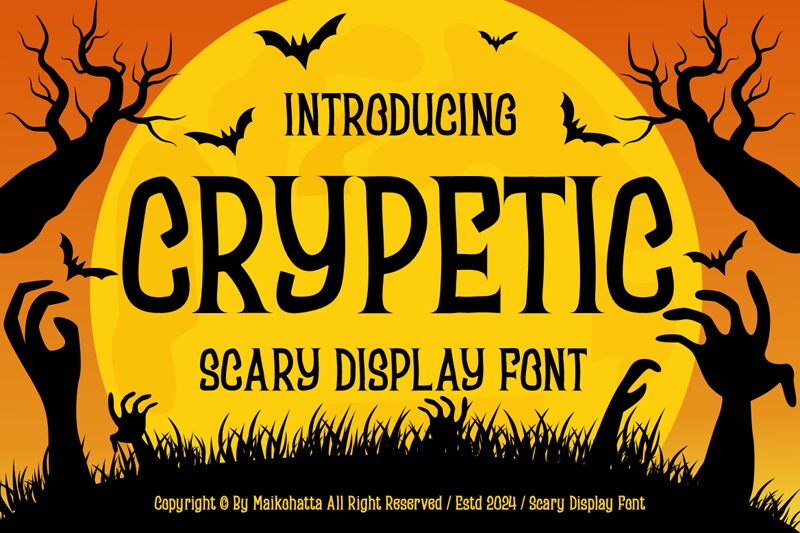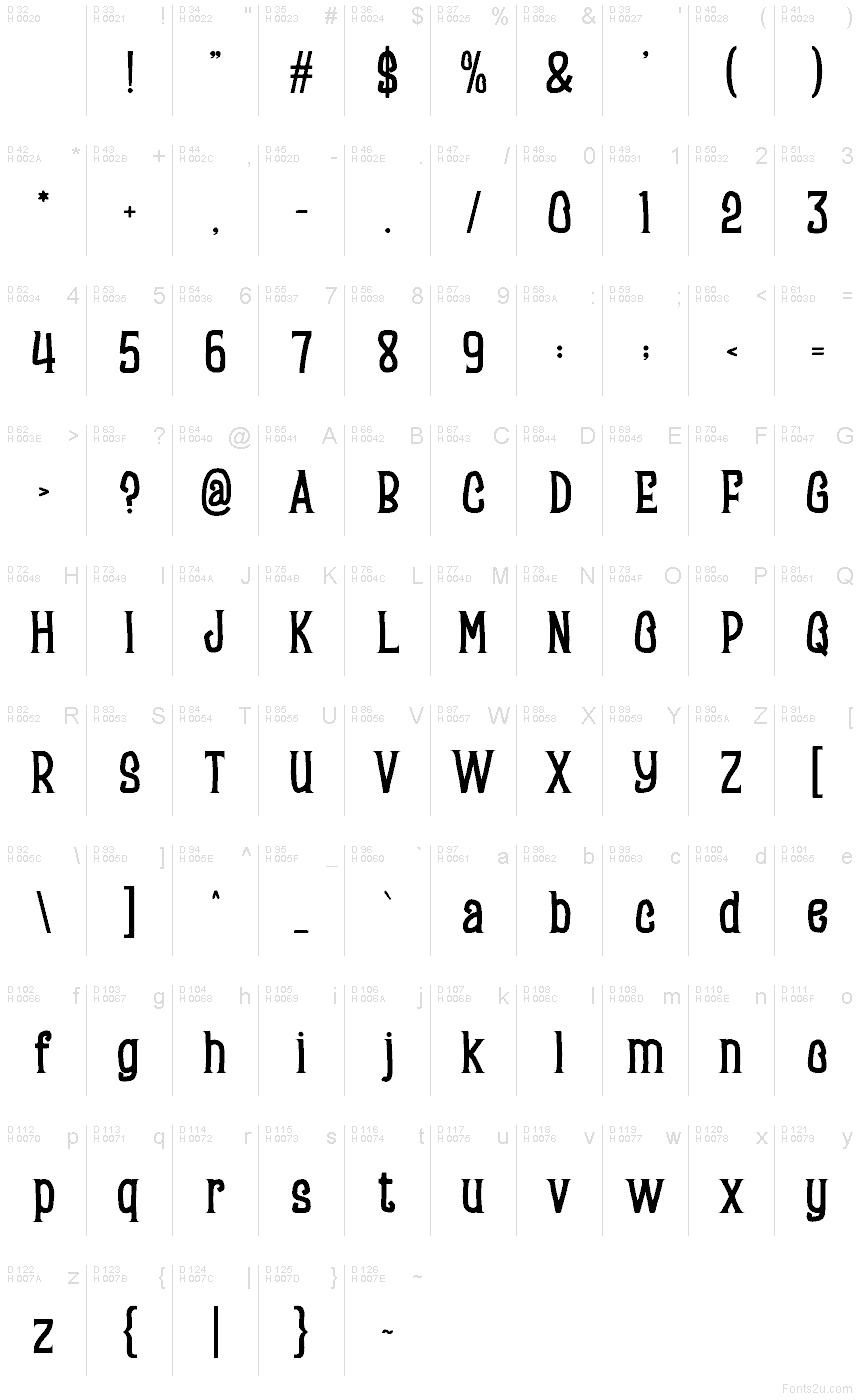
CRYPETIC
Crypetic font by Gilang Ternadho is a free Halloween display font. Its tall, slightly condensed forms swing with wavy, hand-carved energy—like letters cut from black paper and glued down while the glue was still wet. The strokes feel inky and a bit gnarly, yet the rhythm stays consistent, so headlines read cleanly even as they creep. It’s spooky without getting messy.
Using Crypetic, you can nail haunted house posters, party invites, social promos, themed banners, trick-or-treat bag graphics, and costume contest flyers. This free font shines at large sizes where those slinky curves can breathe; pair it with a plain, modern sans for body copy to keep the chills legible.